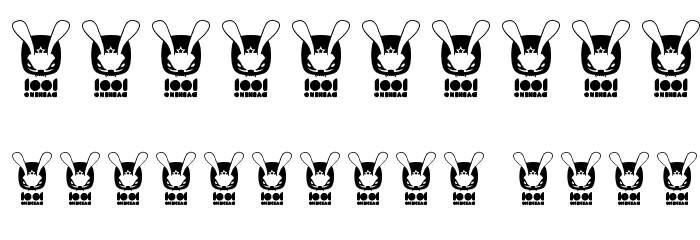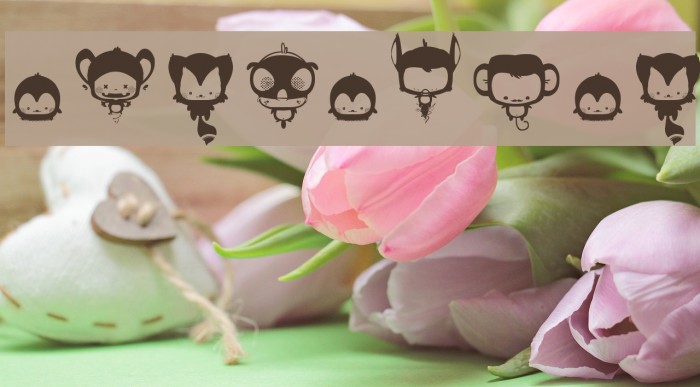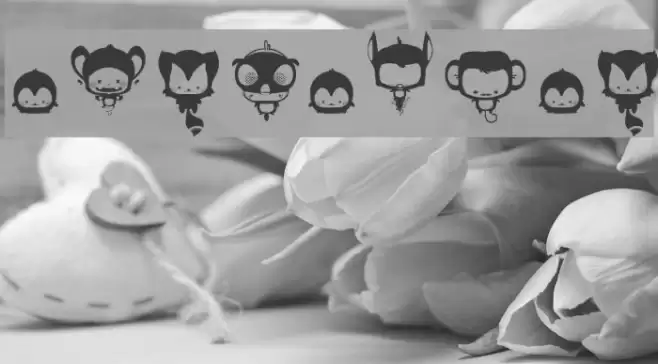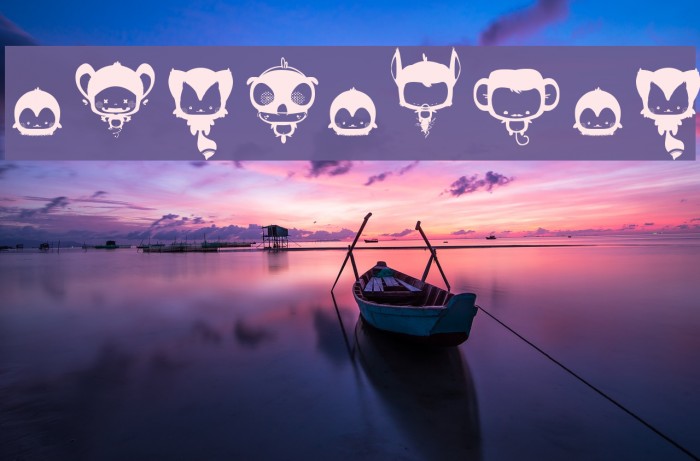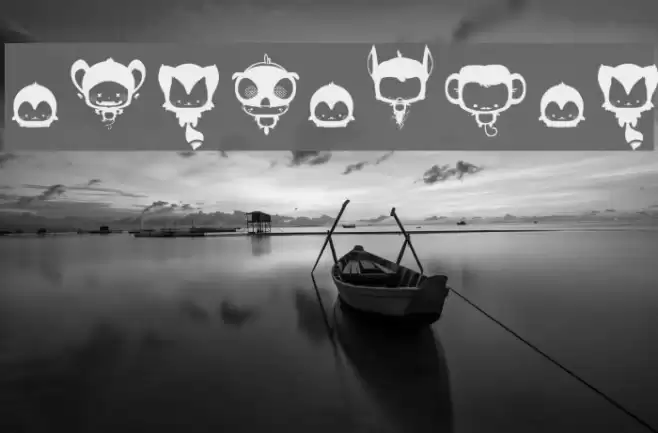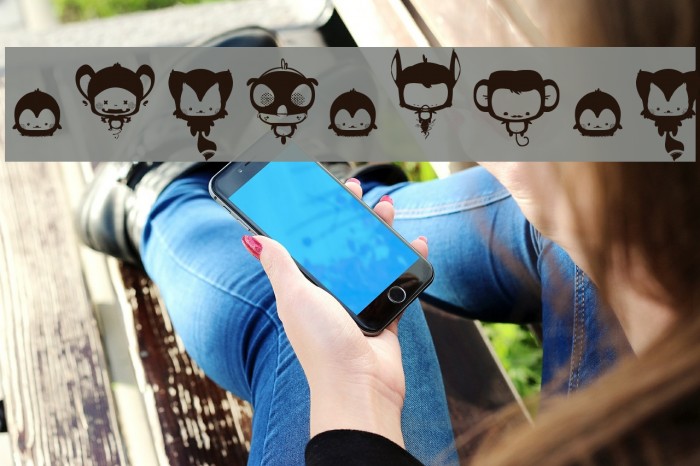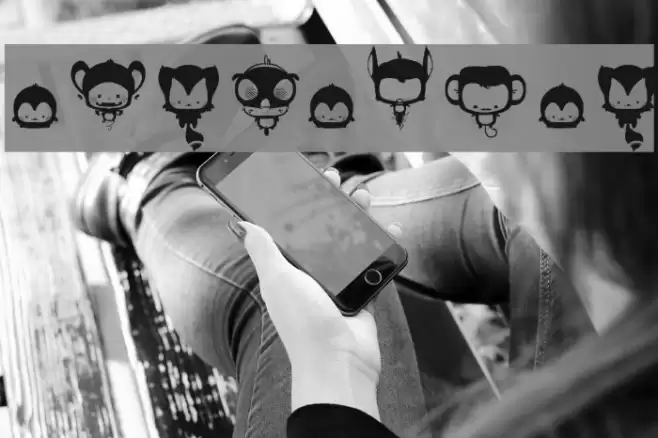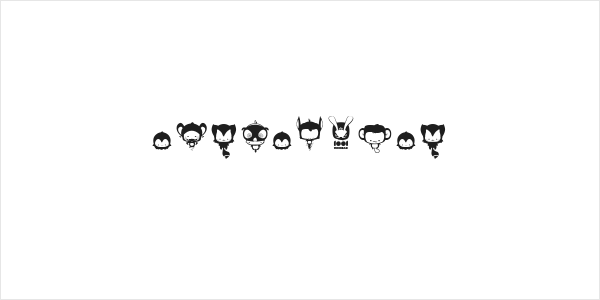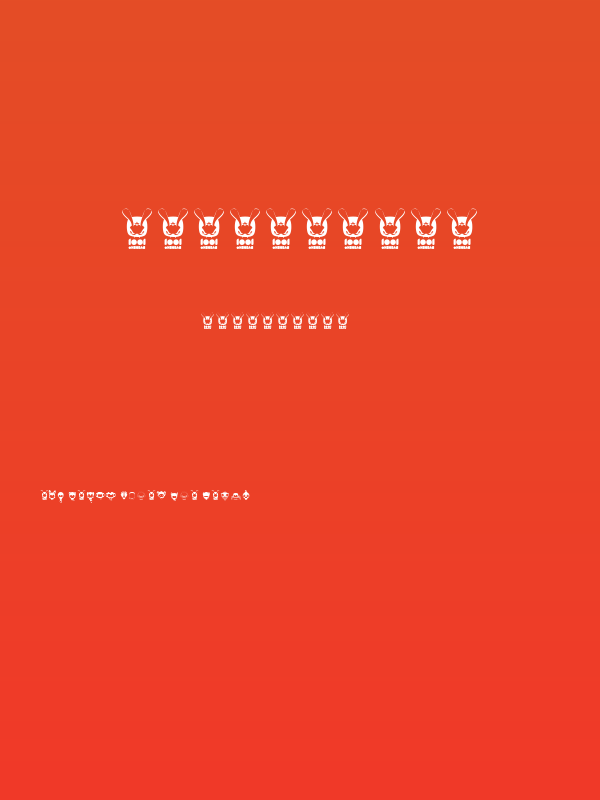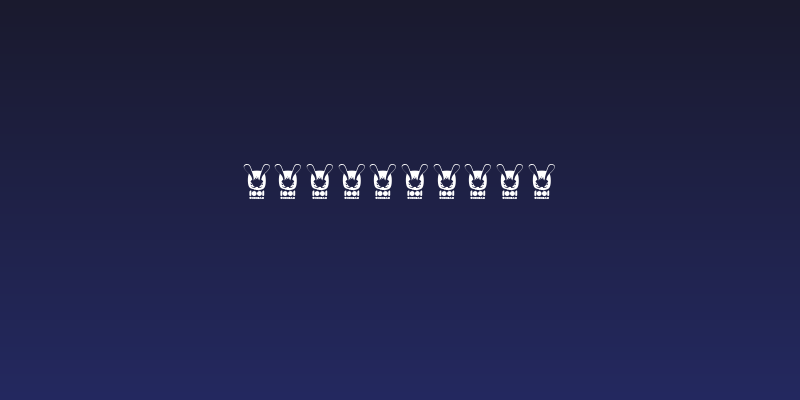
animal_kai Font
animal_kai Description
This is not a valid font. The image contains a series of stylized animal and character icons arranged in a grid format. Each icon is unique, featuring different animal-like designs with exaggerated features such as large ears, eyes, or other distinctive elements. These icons are more illustrative and decorative, lacking the typical characteristics of a font such as consistent letterforms or typographic elements.
| Use Case | Illustrations, Branding, Graphic Design |
| Proposed Projects | These icons could be used for graphic design projects, children's books, or as part of a branding package for a playful or whimsical brand. |